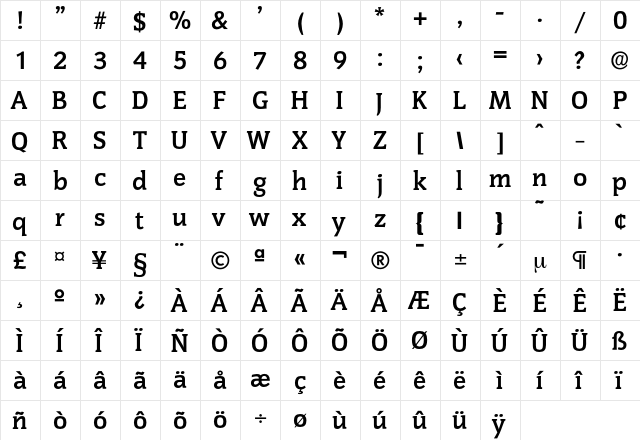
Congress-Bold Regular
Design Context for Congress-Bold Typeface
Congress-Bold takes a measured approach to typography — its balanced proportions and neutral character make it a reliable workhorse for both digital and print work. Its bold stroke weight gives it real presence on the page.